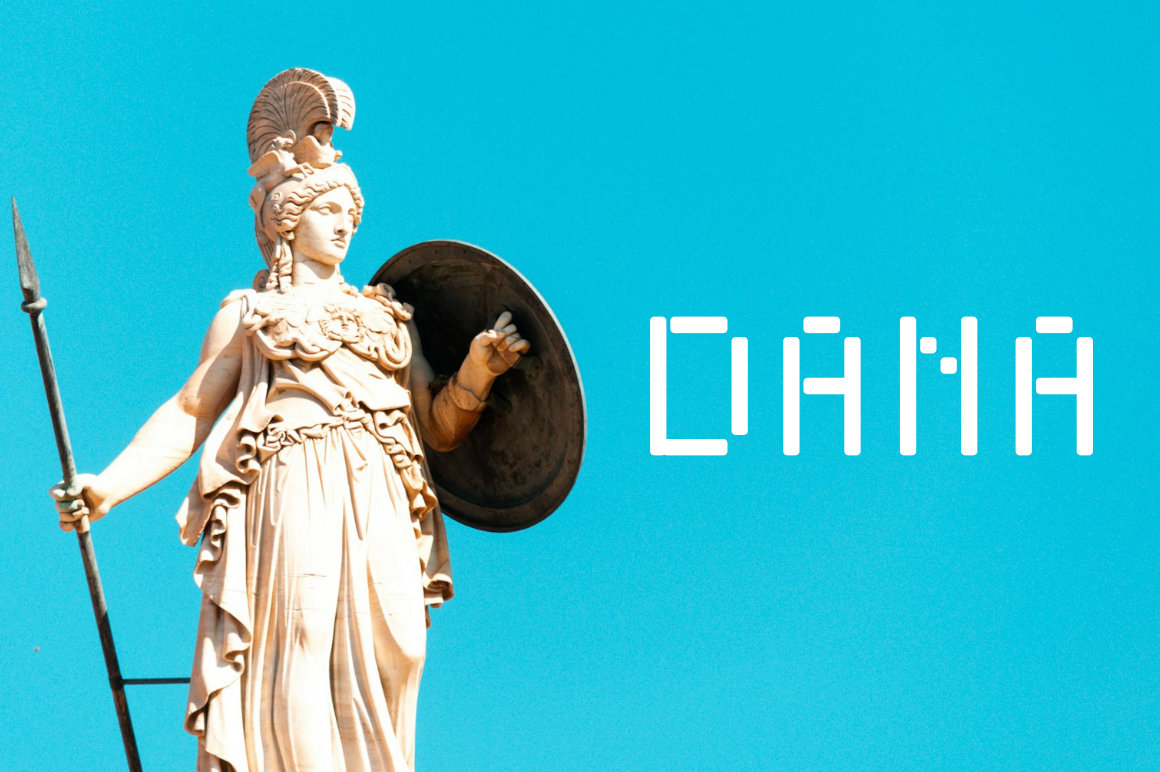
Zerpixl Volt Pixel Tech Sans Font
Pixel Sans Modern is a versatile font that can be used for a variety of purposes. Its bold and distinctive style makes it perfect for headlines and titles, while its clean and readable design makes it ideal for body copy. Whether you're creating a retro-inspired game or a cutting-edge website, Pixel Sans Modern is the perfect font to bring your vision to life.
Versatile Styles: Regular and Italic options for diverse design needs.